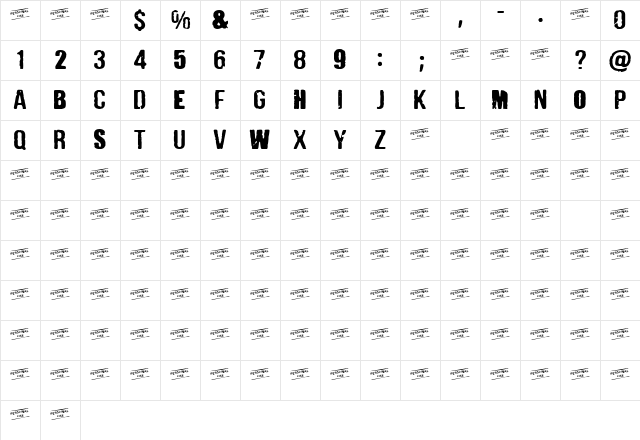
CF Punk Fashion PERSONAL Regular
Foundry: Cloutierfontes
Designer: Steve Cloutier
Design Context for CF Punk Fashion PERSONAL
CF Punk Fashion PERSONAL is a composed and adaptable typeface that performs quietly and consistently across a wide range of design contexts.